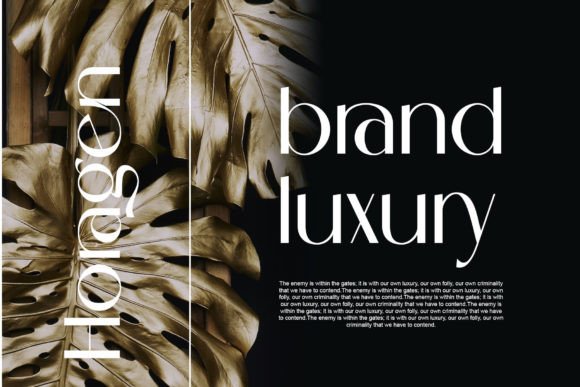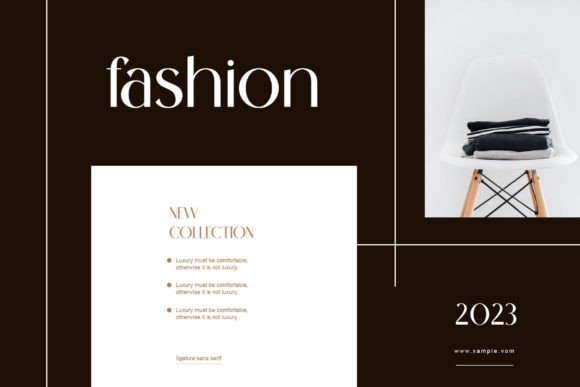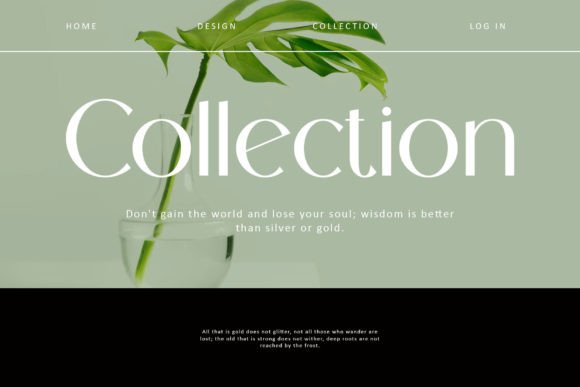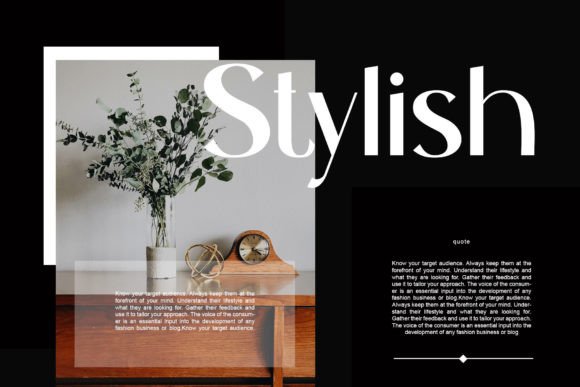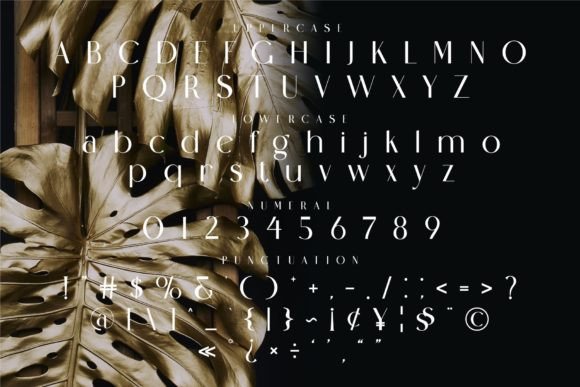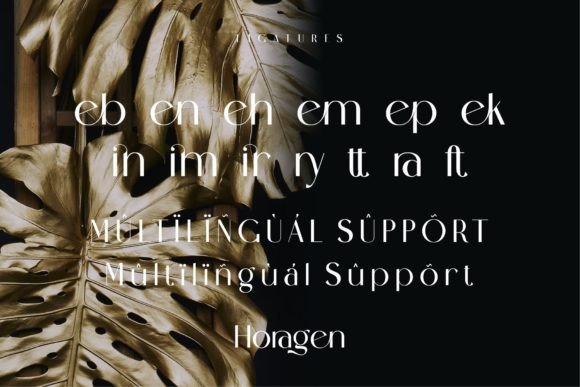
Introduction to Horagen Font
Do you ever find yourself staring at a blank canvas, waiting for inspiration to strike? For designers, that moment can be a constant companion, but with the right tools, it can also be a catalyst for creativity. That’s where the Horagen Font comes in – a sleek and sophisticated sans serif font that’s designed to elevate your projects to the next level.
Whether you’re working on a high-end fashion magazine, creating invitations for a luxury event, or crafting a logo that exudes elegance, the Horagen Font is the perfect design resource. With its clean lines and visual elegance, it’s the ideal choice for designers who want to create a lasting impression. And the best part? This beautiful font is PUA encoded, making it easy to access all the delightful glyphs and swashes you need to take your project to new heights.
Key Features of Horagen Font
- High-quality design resource ideal for creative projects, offering a unique and professional touch.
- Unique characteristics: a modern, sleek design aesthetic, making it perfect for contemporary creative projects.
Honest Review: Horagen Font
I recently had the chance to work with the Horagen Font, and I must say it’s been a game-changer for my creative projects. This high-quality font has quickly become one of my go-to design resources.
- ✨ Beautifully designed characters with a modern feel
- ✨ Perfect for creating eye-catching headlines and titles
One of the standout features of the Horagen Font is its ability to be used with a transparent background, giving designers endless possibilities for customization.
- ⚠️ Limited language support, which may be a drawback for designers working on international projects
Overall, I’m thoroughly impressed with the Horagen Font. Its high-quality design and versatility make it a valuable addition to any designer’s toolkit. While it may have some limitations, I believe it’s well worth considering for your next creative project.
Horagen Font: A High-Quality Design Resource
Some tips for getting the most out of the Horagen Font include using it for creative projects that require a high-quality design resource, such as logos, business cards, or marketing materials. You can also use it for digital products, such as e-books or presentations, where a clear and readable font is essential. Additionally, you can use the Horagen Font to create a consistent brand identity across all your marketing materials.